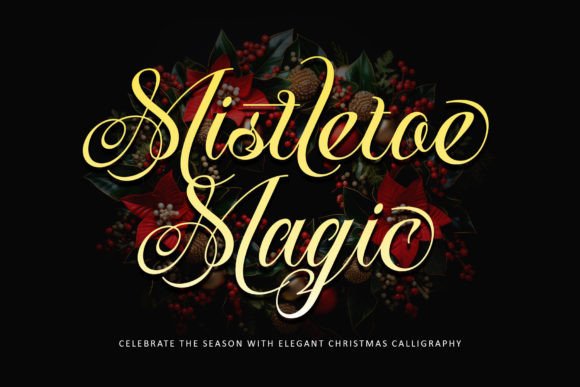
Enhance Your Brand with Mistletoe Magic
The Power of a Thoughtful Font in Branding
As a small business owner, you know that every detail matters. From your logo to your packaging, each touchpoint is an opportunity to make a lasting impression. One often overlooked element that can significantly impact your brand’s visual identity is the font you choose. A well-selected typeface like Mistletoe Magic can elevate your brand from good to great, helping you stand out in a crowded market.
What Is Mistletoe Magic?
Mistletoe Magic is a captivating script font designed to bring a sense of elegance and charm to your branding materials. With its flowing lines and graceful curves, it evokes a feeling of warmth and sophistication. This font is ideal for businesses that want to convey a sense of tradition, creativity, or luxury. Whether you're running a boutique, a café, or an online store, Mistletoe Magic adds a touch of personality and style to your designs.
How Mistletoe Magic Enhances Brand Consistency
Consistency is key in building a recognizable brand. Using the same font across all your marketing materials helps reinforce your brand identity. Mistletoe Magic is versatile enough to be used in multiple formats, from logos and social media posts to product labels and website banners. By maintaining a consistent typeface, you create a cohesive look that customers will come to associate with your business.
Real-World Applications of Mistletoe Magic
- Bakery Branding: Use Mistletoe Magic on your bakery’s logo and packaging to add a touch of holiday cheer and elegance.
- Handmade Candle Labels: The soft curves of this font complement the artisanal feel of handmade products.
- Beauty Product Packaging: A subtle use of Mistletoe Magic can enhance the premium feel of your beauty line.
- Coaching Business: Pair Mistletoe Magic with a clean sans serif font for a balanced and professional look.
- Café Menus: This font brings a welcoming and inviting atmosphere to your menu design.
- Boutique Logo: Mistletoe Magic adds a unique flair to your boutique’s visual identity.
- Online Shop Branding: Use this font as a headline or accent to highlight key messages on your website.
When to Use Mistletoe Magic
Mistletoe Magic works best as a display font or accent typeface. It's perfect for headlines, logos, and other prominent text elements where you want to draw attention. For body text or smaller labels, consider pairing it with a more readable sans serif or serif font to ensure clarity and legibility.
Readability Matters
No matter how beautiful a font may be, it must also be readable. Mistletoe Magic is designed with readability in mind, making it suitable for use on small labels, mobile screens, and printed packaging. However, it's always a good idea to test the font in different contexts before committing to it across your entire brand.
Font Pairing Ideas
Pairing Mistletoe Magic with complementary fonts can create a visually appealing and balanced design. Here are a few ideas:
- Decorative + Clean: Combine Mistletoe Magic with a modern sans serif font like Montserrat for a stylish contrast.
- Expressive + Readable: Pair Mistletoe Magic with a classic serif font like Georgia for a refined and elegant look.
- Modern + Traditional: Use Mistletoe Magic alongside a minimalist sans serif font to balance creativity with simplicity.
Conclusion
A font like Mistletoe Magic can transform the way your brand is perceived. It adds a layer of sophistication and personality that can set you apart from competitors. By using this font thoughtfully and consistently, you can create a brand that feels authentic, professional, and memorable. Whether you're designing a logo, creating social media graphics, or crafting product labels, Mistletoe Magic is a valuable tool in your creative arsenal.